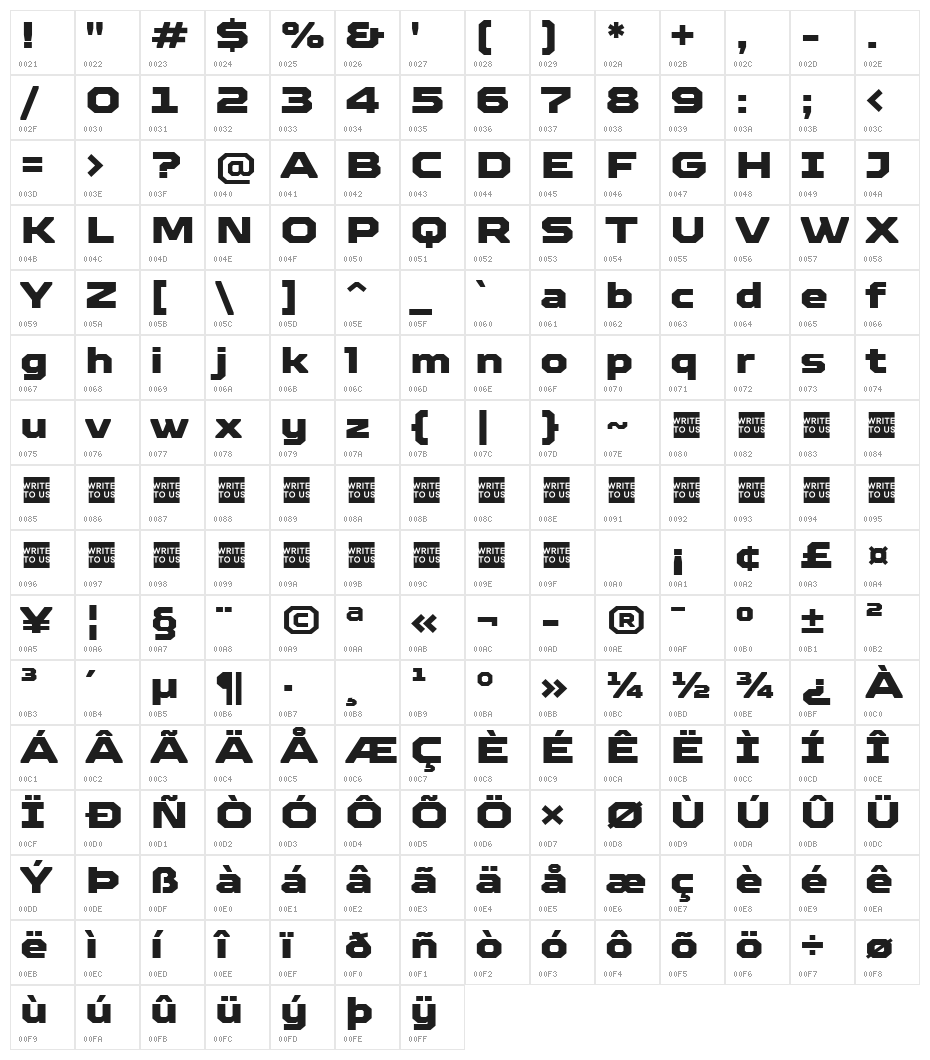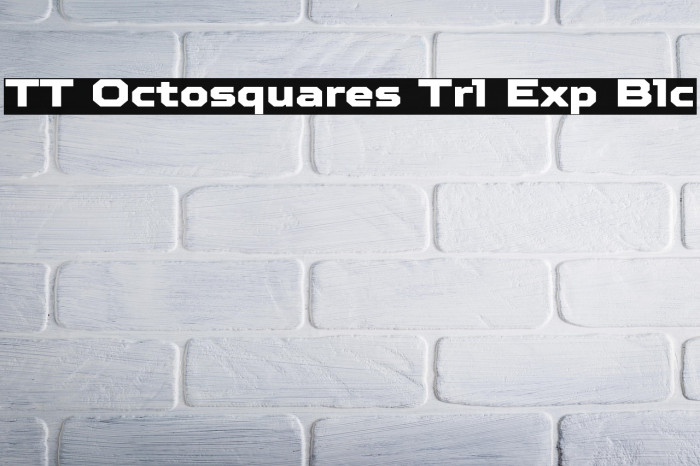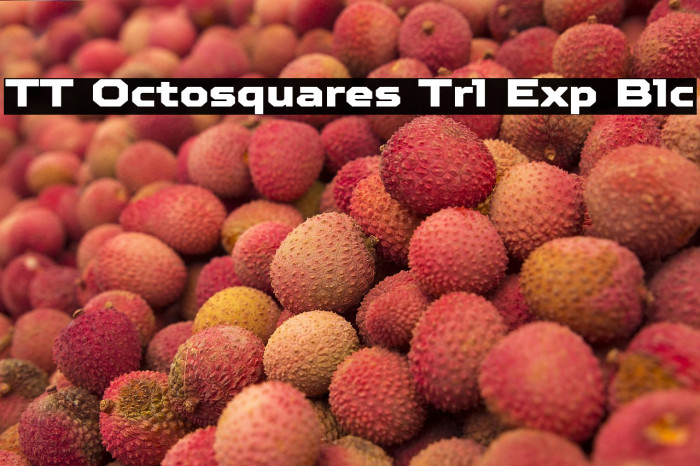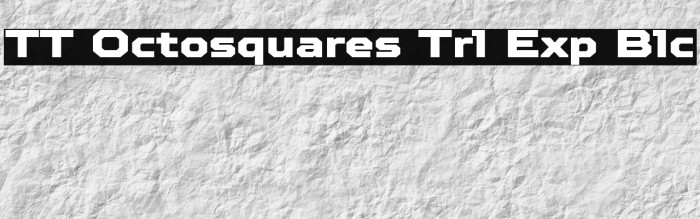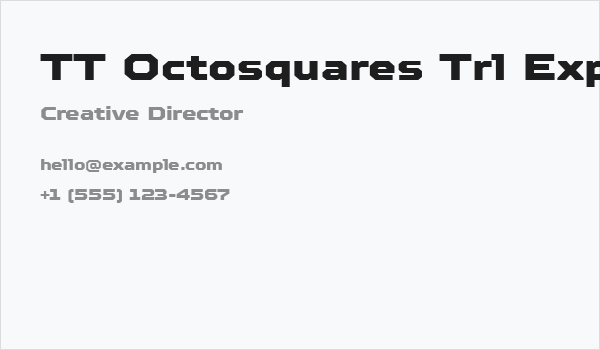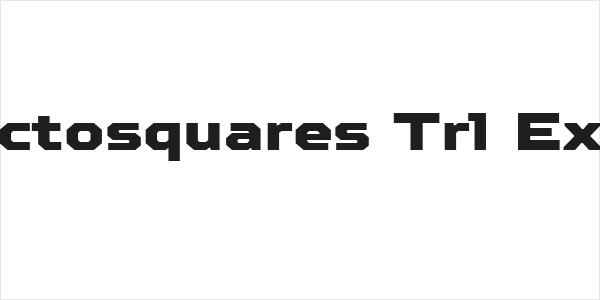
TT Octosquares Trl Exp Blc Font
TT Octosquares Trl Exp Blc Description
This font exhibits a bold and geometric style, characterized by its blocky and angular letterforms. The uppercase and lowercase letters maintain a consistent width, creating a uniform appearance. The numerals and special characters follow the same geometric design, enhancing the cohesive look. The font's strong presence and modern aesthetic make it suitable for attention-grabbing designs. Its expanded width and tight character spacing contribute to its impactful visual appeal, making it ideal for headlines and display purposes.
| Proposed Projects | Ideal for branding, posters, headlines, and any design requiring a strong, modern impact. |